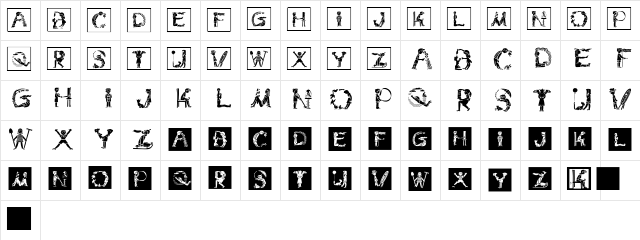
ChildrensAlphabetInvers Regular
Design Context for ChildrensAlphabetInvers Typeface
ChildrensAlphabetInvers has an approachable, lighthearted character — its loose, expressive forms are well-suited to children's content, casual branding, and fun-first design.
Font Pairing: Pairs well with a rounded or humanist sans for body copy, maintaining the friendly tone without relying on ChildrensAlphabetInvers to carry extended reading.
Pro Tip: Use ChildrensAlphabetInvers at larger display sizes where its expressive character can land. Pair with a clean, simple sans for body copy to maintain readability.